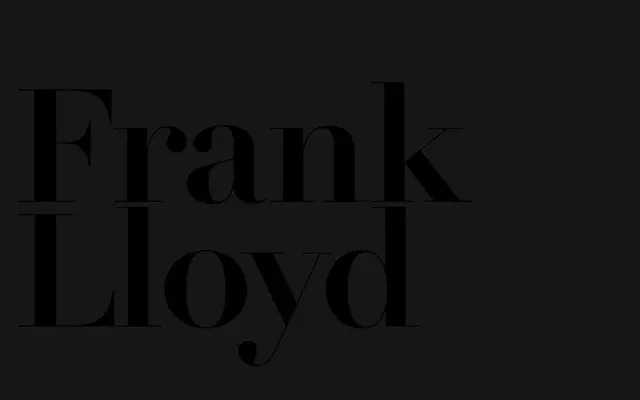
Amazonia
Newglyph · Ian Party
A high-contrast didone with extreme thick-thin stroke variation, issued in 180 styles with variable font axes for weight, width and contrast.
Designed by Ian Party and named after the legendary Amazons of Greek mythology, this typeface draws on the French neoclassical Didot tradition as its structural model. The family spans 180 static styles across Roman, Italic, Contrast and Contrast Italic subfamilies, accompanied by two variable font files offering continuous control over weight, width and contrast. Each style contains 547 glyphs with broad Latin Extended coverage across more than 70 languages.
Amazonia is explicitly modelled on the Didot archetype, featuring extreme contrast between thick and thin strokes characteristic of French neoclassical didone serifs.